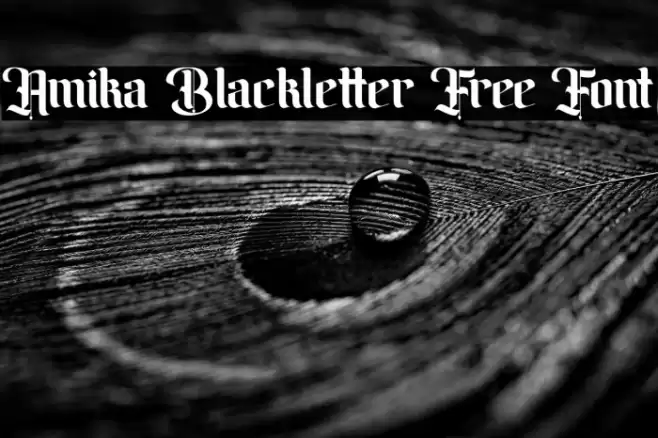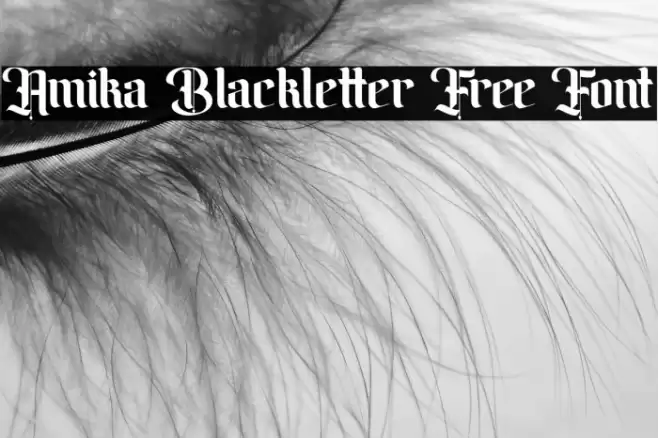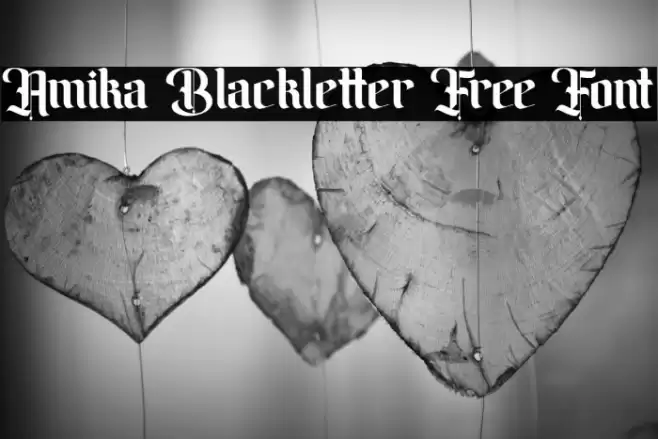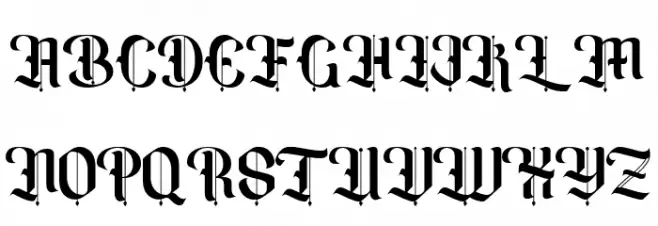
Amika Blackletter Free Font Font
Amika Blackletter Free Font Description
This font exhibits a traditional blackletter style, characterized by its intricate and ornate design. The uppercase letters are bold and feature sharp, angular lines with decorative elements that give a gothic appearance. The lowercase letters maintain the same stylistic elements, providing a cohesive look across the alphabet. The font's strokes are thick and consistent, adding to its dramatic and impactful presence. This style is reminiscent of medieval script, often used in historical documents and signage. The overall appearance is both elegant and authoritative, making it suitable for projects that require a touch of classic sophistication.
A bold, gothic blackletter font with intricate, angular designs from Regular fonts.
- Proposed Projects: Ideal for use in branding, posters, book covers, and any project requiring a historical or gothic aesthetic.
- Overall Style: Vintage
- Use Case: Logos, Headlines, Decorative text